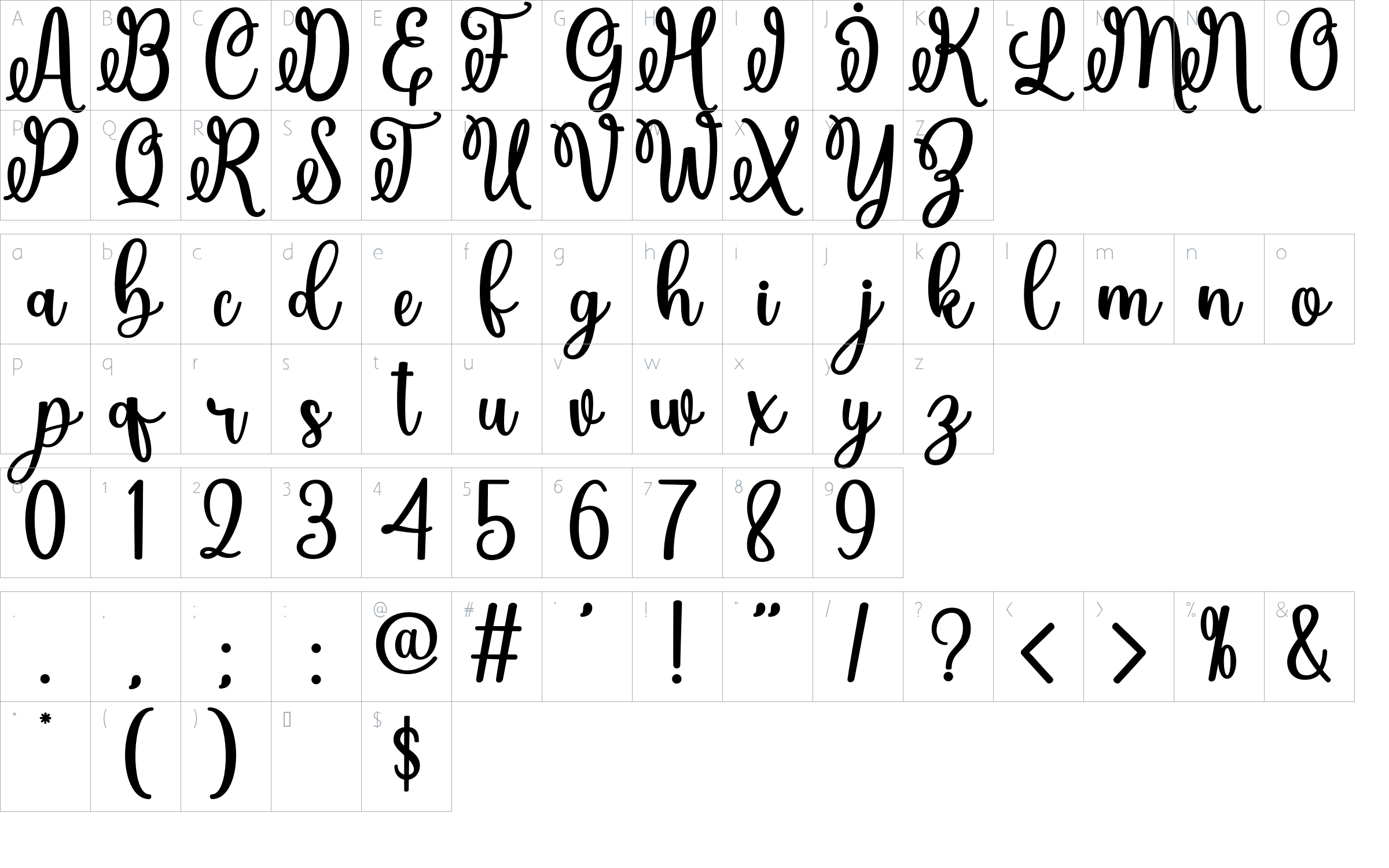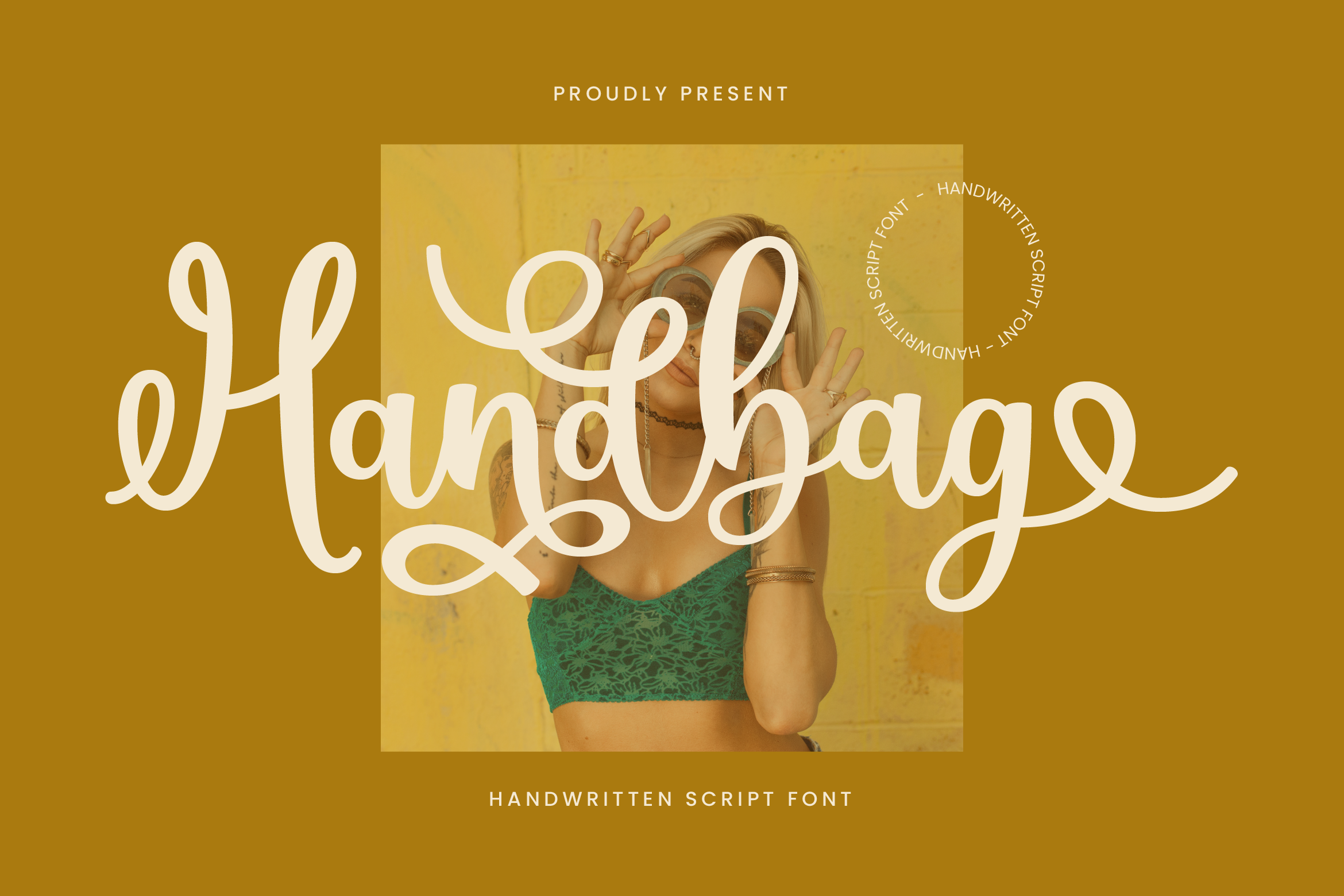
Handbag - Beautiful And Romantic Handwritten Font
About Handbag - Beautiful And Romantic Handwritten
Handbag is a delicate, elegant, and flowing handwritten font. It has beautiful and well-balanced characters, and as a result, it matches a wide pool of designs. Add it to your most creative ideas, and notice how it makes them come alive!
What’s really awesome is that Handbag comes with lowercase alternates, allowing you to create even more authentic custom-feel text.
Handbag is PUA encoded, which means you can access all glyphs and swashes with ease!